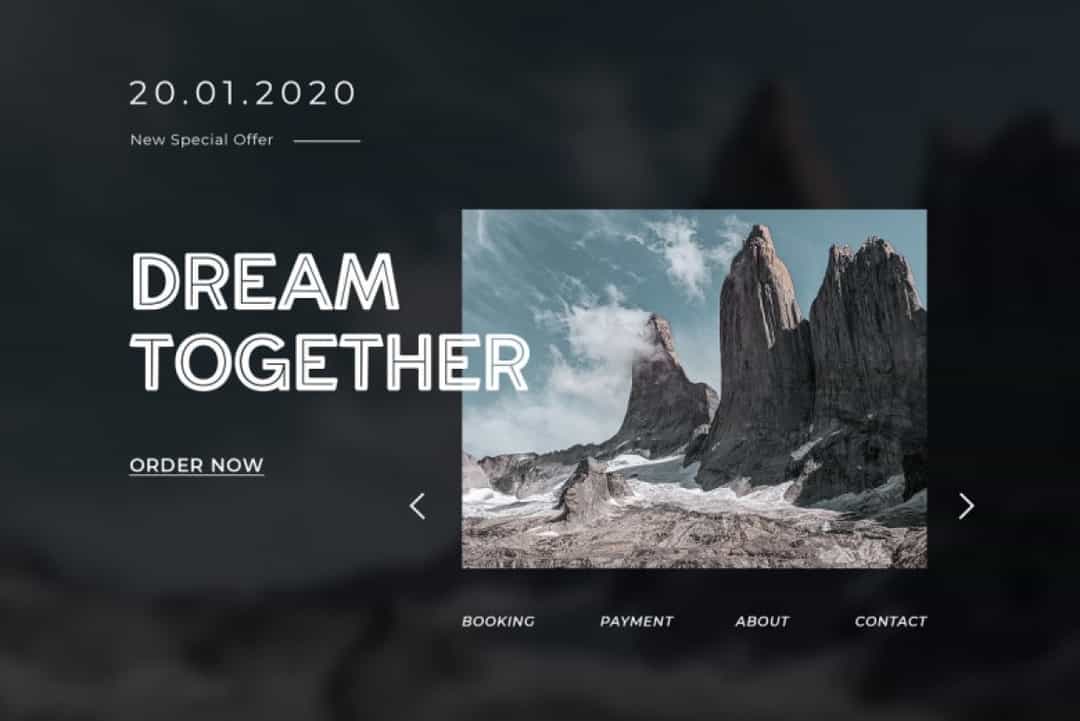
Discover Brightoven Font, part of the Sans Serif Display Decorative collection—a versatile and unique font perfect for adding a personal touch to your projects. Download it for free and enjoy crafting designs with style, from invitations to social media posts. This font is available exclusively for personal use, giving you the freedom to create without limits. Unlock your creativity with Brightoven Font today!
Brightoven Sans Serif Display Font is our latest offering and features unique curvatures and cut-ins, making it one of the most recognizable caps fonts currently available. Perfect for fashion-related branding and editorial designs displaying both feminine and masculine characteristics!